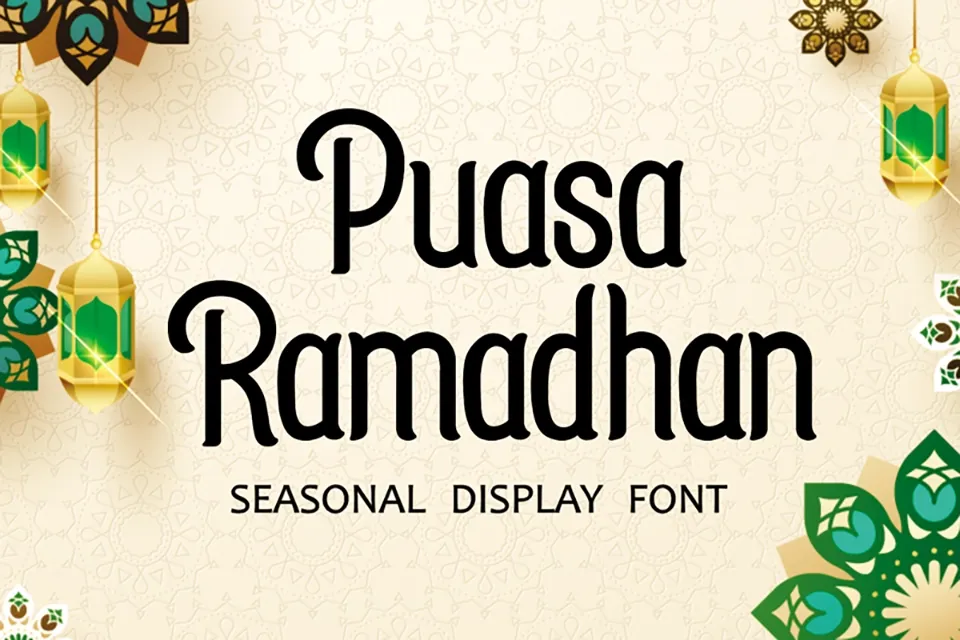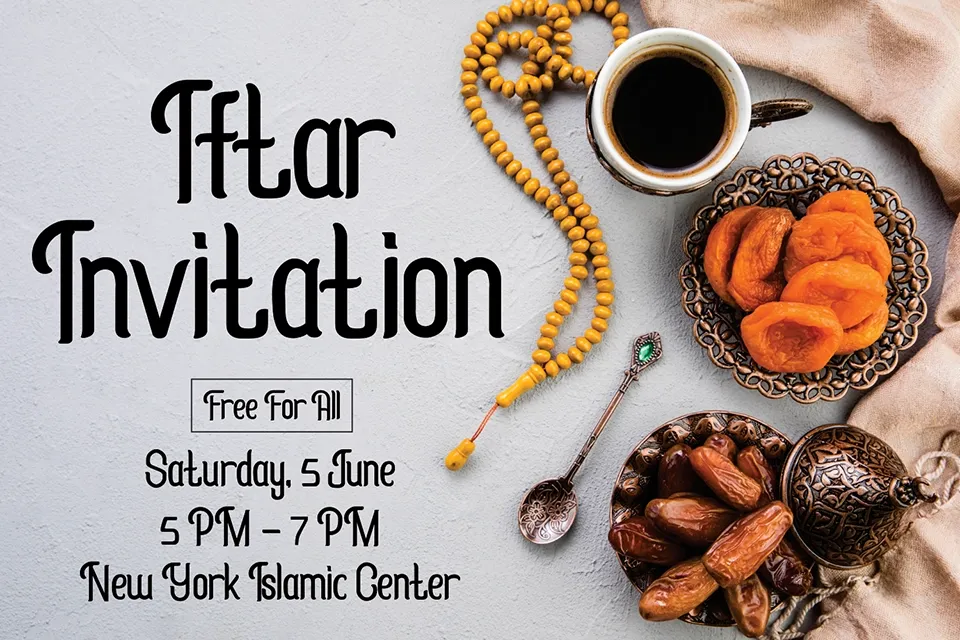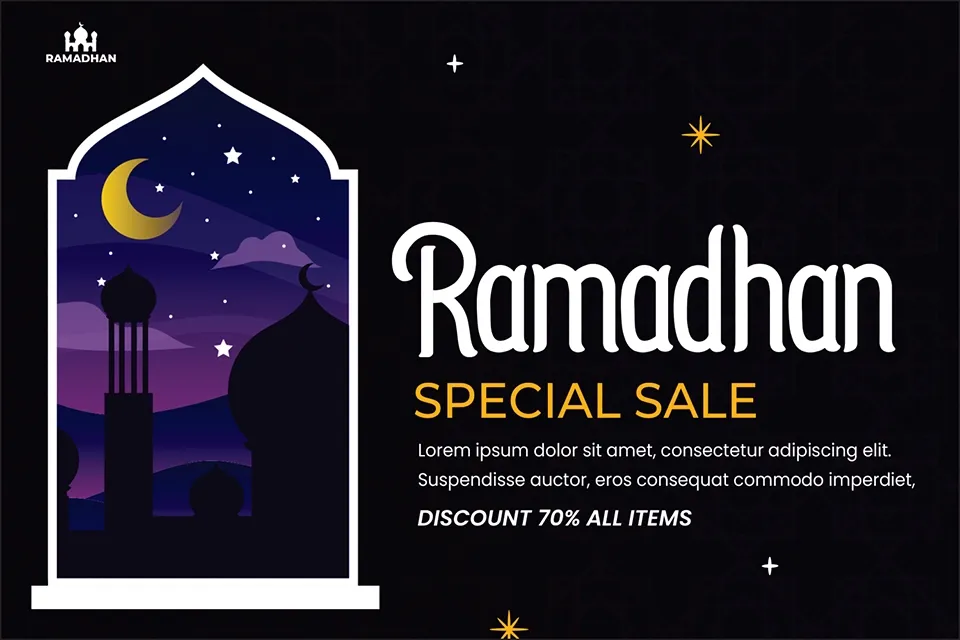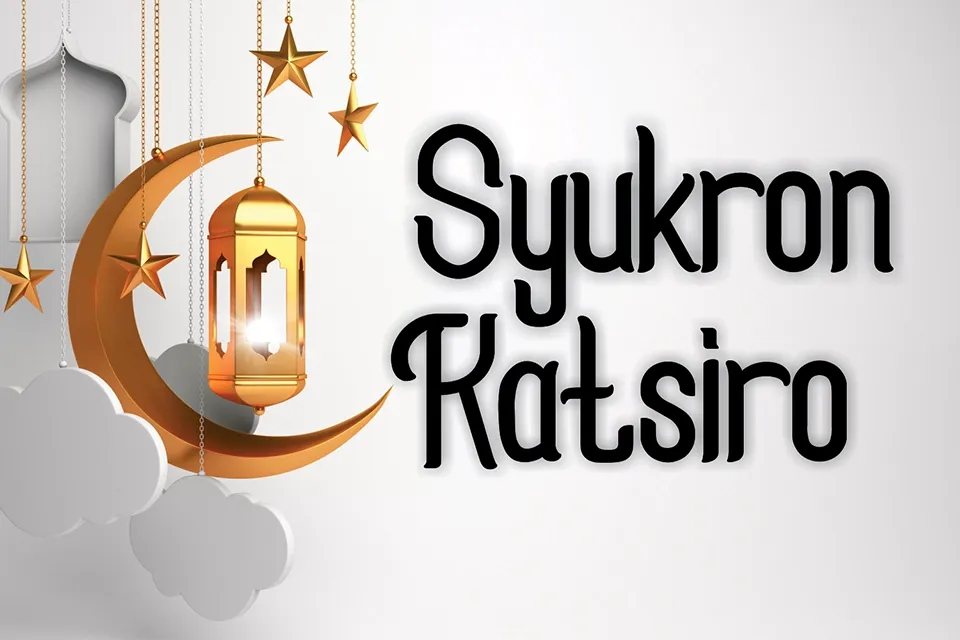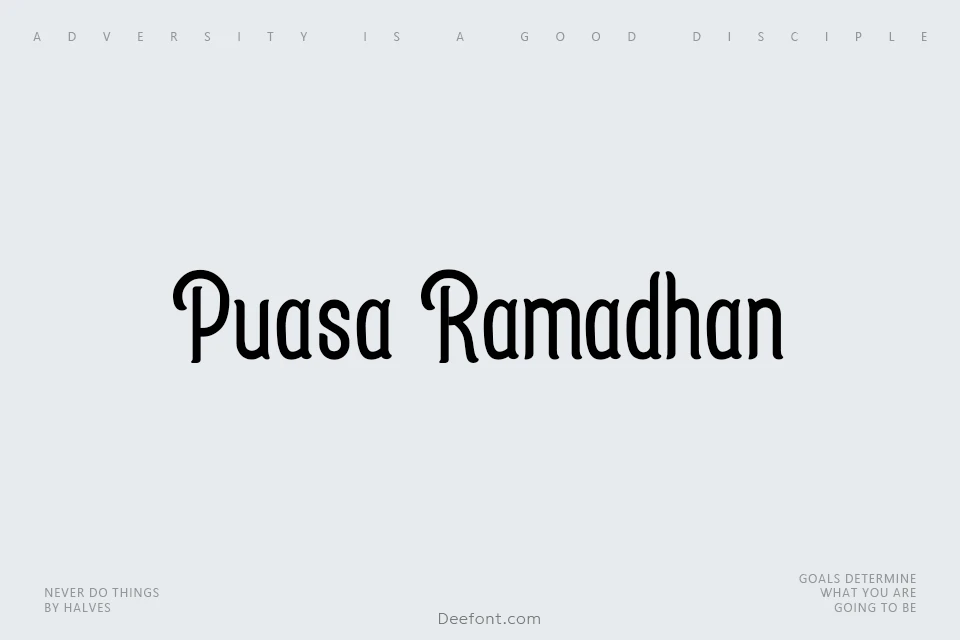
Puasa Ramadhan Display Font
Puasa Ramadhan Display Font is a unique and flexible display typeface designed by Mozatype. Featuring a casual 70’s style with hand-drawn retro slab serif elements and groovy Opentype stylistic alternates, this font brings a genuine and distinct look to any project. Perfect for both formal and informal design ideas, it is especially suitable for seasonal and festive typographic works related to Ramadan and Islamic themes.